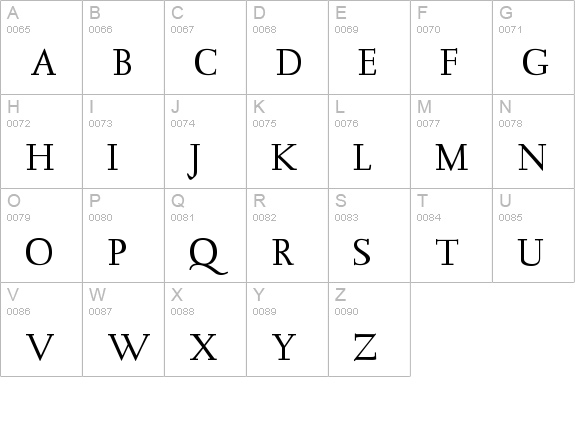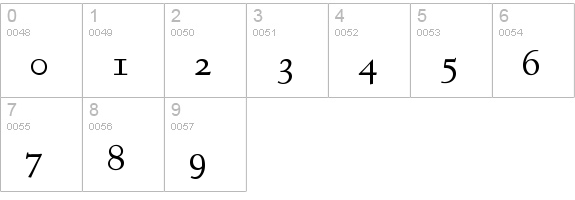
Introducing KaatskillH, a stunningly elegant font that effortlessly combines modernity with a classic touch. With its sophisticated curves and refined details, KaatskillH is the perfect choice for those seeking a font that exudes both professionalism and creativity. This exquisite typeface captivates with its unique letterforms, each carefully crafted to create a harmonious balance between legibility and artistic flair. The graceful curves and gentle strokes of KaatskillH lend a sense of refinement and elegance to any design project, making it ideal for logos, branding, invitations, and more. But what truly sets KaatskillH apart is its versatility. Whether used for headlines, body text, or decorative elements, this font seamlessly adapts to any context, delivering a clear and captivating message every time. Its clean and crisp lines ensure optimal legibility, even at smaller sizes, ensuring that your message is always effectively communicated. And the best part? KaatskillH is available for free, exclusively at FontsMarket.com. With just a few clicks, you can download this extraordinary font and start adding a touch of sophistication to your designs. So why wait? Elevate your projects to new heights with KaatskillH, a font that effortlessly combines timeless elegance with modern sensibility.